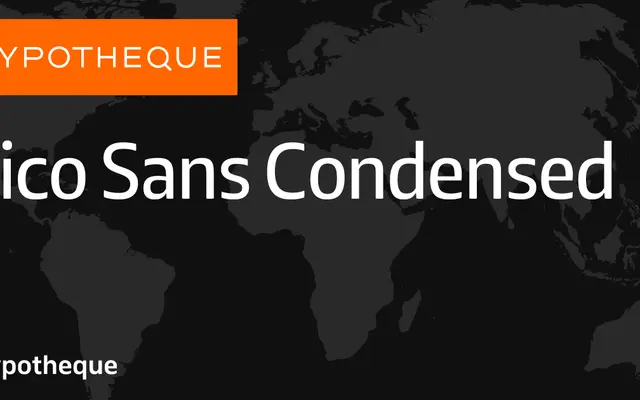
Zico Sans Condensed
The condensed cut of Typotheque's Zico superfamily, offering seven weights with matching italics as part of a larger system that includes sans, slab and display variants.
Zico Sans Condensed is the narrow arm of a substantial type system that also comprises Zico Sans, Zico Slab and Zico Display. Seven weights run from Thin to Black, each with a companion italic, giving designers a full tonal range within the condensed width. The family's cohesion across subfamilies makes it well suited to editorial and information-dense environments where space is at a premium.
A condensed sans-serif member of the broader Zico system, which spans sans, slab and display subfamilies across seven weights with italics. The condensed cut sits firmly in the grotesque tradition.